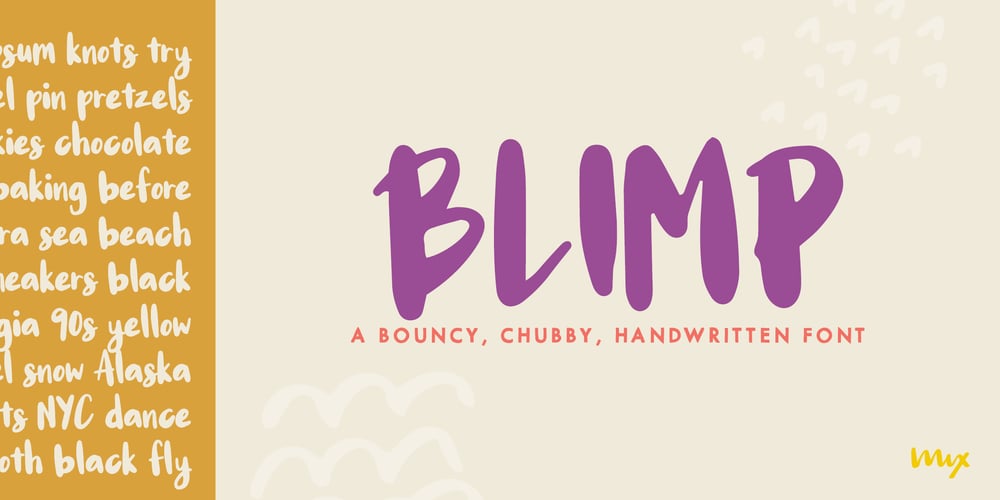
Mix Blimp Font Family was designed by Mikko Sumulong and published by Mix Fonts. Mix Blimp contains 1 styles and family package options. Introducing BLIMP – a fun, playful, and charming handwritten font. Ideal for adding a personal touch to your social media posts, quotes, packaging, digital crafts, greeting cards, marketing materials, and more. This font was created using an iPad Pro and Apple Pencil for a truly authentic, digital handwriting style. Don’t let boring fonts weigh you down – add some bounce to your designs with BLIMP.–Mix Blimp includes the following characters: ABCDEFGHIJKLMNOPQRSTUVWXYZ abcdefghijklmnopqrstuvwxyz 0123456789 !@$#%^&*()`~♥❤✿•· ÷×+−±≈=≠[]<>‹›:;'”,.|/?{}<>“”‘’-–—_…©®™<>«»°¹²³¡¿₱¢€£¥§† ÁÀÂÄÃÅĂĀĄÆĆČÇÐÉÈÊËĖĒĘIÍÌÎÏĪĮŁŃÑÓÒÔÖÕØŌŐŒŚŠȘȚÚÙÛÜŰŪŲÝŸŹŽŻÞ áàâäãåăāąæćčçðéèêëėēęıíìîïīįłńñóòôöõøōőœśšșțúùûüűūųýÿźžżþß Alternates: ff ll tt zz